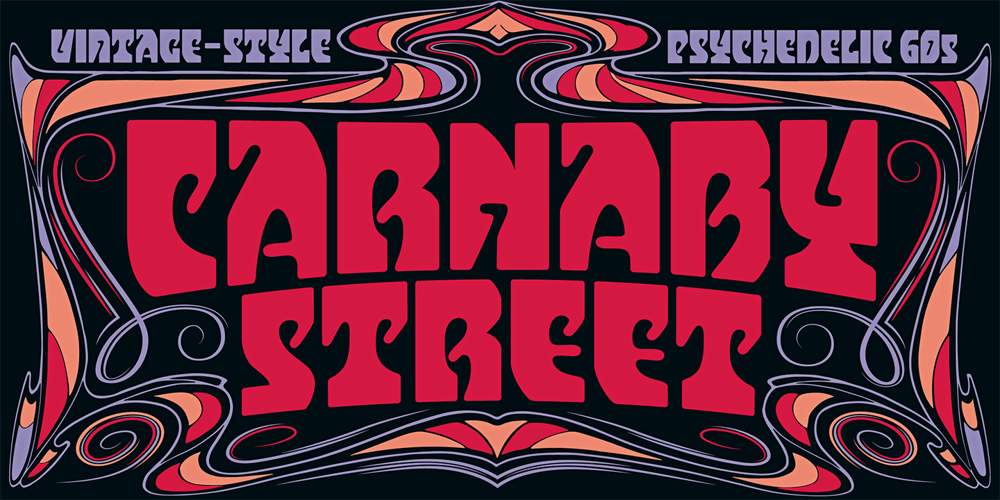
Carnaby Street Font Family was designed by Mott Jordan and published by Mysterylab. Carnaby Street contains 1 styles and family package options. Carnaby Street is a vintage style bold font that pairs strong rectangular framing with softer rounded elements. It has a cool, funky, and groovy vibe, while still retaining a strong sense of linearity and geometry.This lettering style conjures up the retro vibes of the 1960s swinging London scene, or the psychedelic poster art of posters and handbills for the Fillmore Auditorium and Avalon Ballroom in San Francisco in the mid to late ’60s.It represents a new take on a classic array of hand lettered stylings that have their roots both in the Art Nouveau Movement and the hippie counterculture movement of the 1960s and early 1970s.